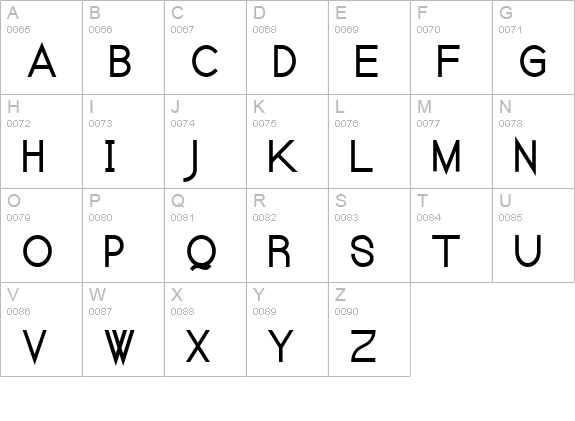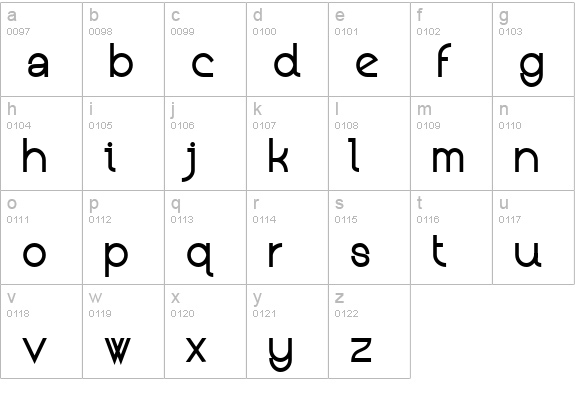
Kerater Medium Font Details
Kerater Medium is a balanced, medium-weight variant in the Kerater typeface family \xE2\x80\x94 well suited to sub-headlines, navigation, and balanced editorial work.
Kerater Medium font is a versatile and modern typeface that is perfect for a wide range of design projects. With its clean lines and balanced proportions, this font exudes elegance and professionalism. Whether you're working on a logo, website, or print materials, Kerater Medium font will add a touch of sophistication to your designs. What sets Kerater Medium font apart is that it is available for free download at FontsMarket.com. Yes, you read that right - this high-quality font can be yours at no cost. FontsMarket.com is a trusted source for premium fonts, and they have made Kerater Medium font freely available to empower designers and creatives like you. Downloading and installing Kerater Medium font is a breeze. Once you have it in your font library, you can start using it in your projects immediately. Its wide range of characters and glyphs ensure that you'll have the flexibility to create unique and eye-catching designs. Whether you're a professional designer or just starting out, Kerater Medium font is a must-have in your font collection. Its versatility and timeless appeal make it suitable for a wide range of design applications. Don't miss out on this opportunity to enhance your designs with a high-quality font that is freely available for download at FontsMarket.com. Try Kerater Medium font today and take your designs to the next level!